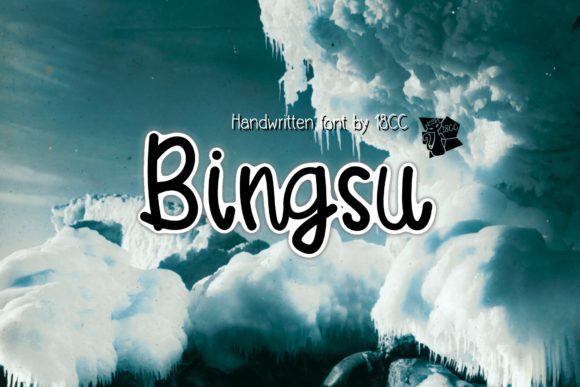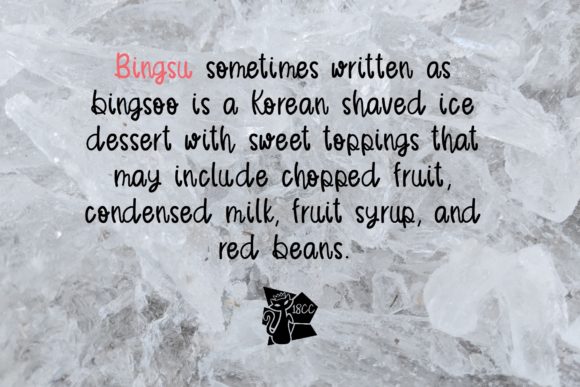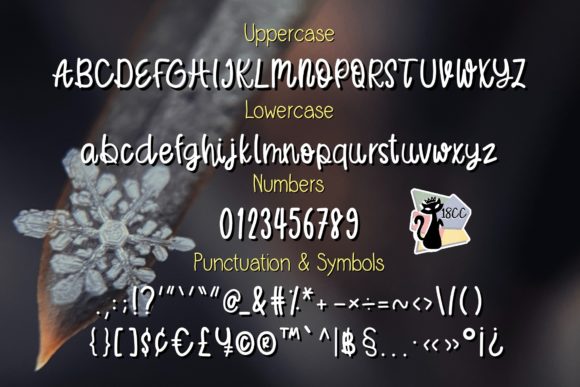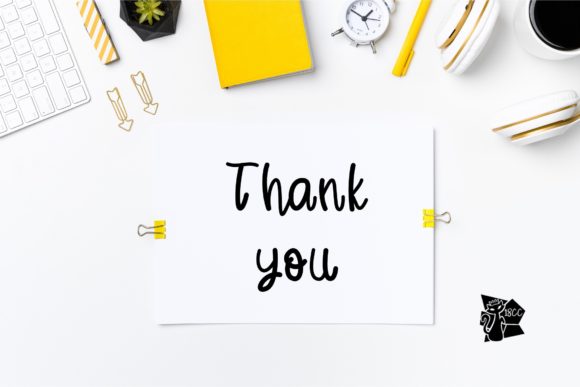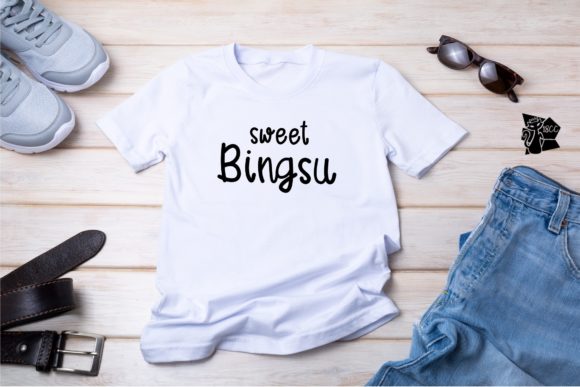
About Bingsu Font
Bingsu is a casual and simple handwritten font. Clean and cute, this font is the perfect fit for all of your logos, branding, social media, crafty DIY projects, and much more!